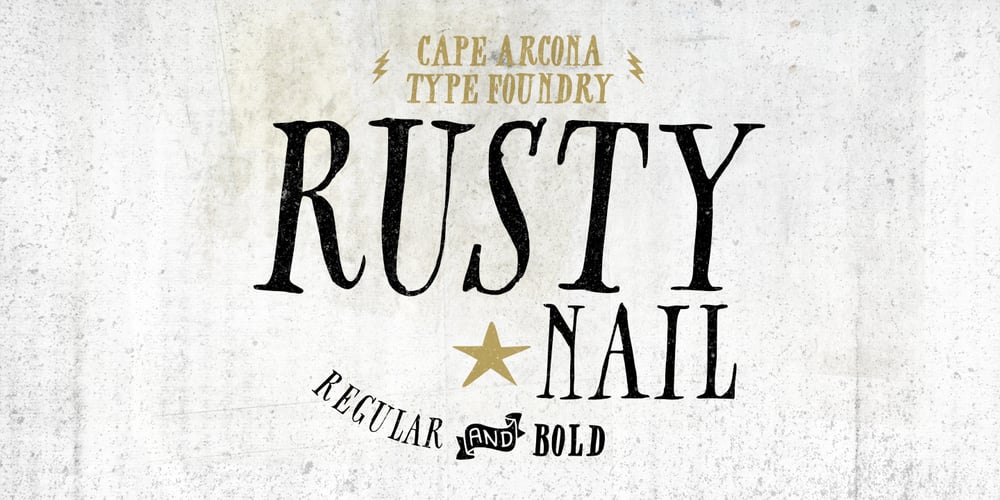
CA Rusty Nail Font Family was designed by Stefan Claudius and published by Cape Arcona Type Foundry. CA Rusty Nail contains 2 styles and family package options. Rusty Nail is a carefully hand-made uppercase only typeface with a full Central European character set which comes in two styles, Regular & Bold. It was created for a liquor company where hand-made letters were part of the corporate design. It’s perfect for labels or lettering with a “used look”.